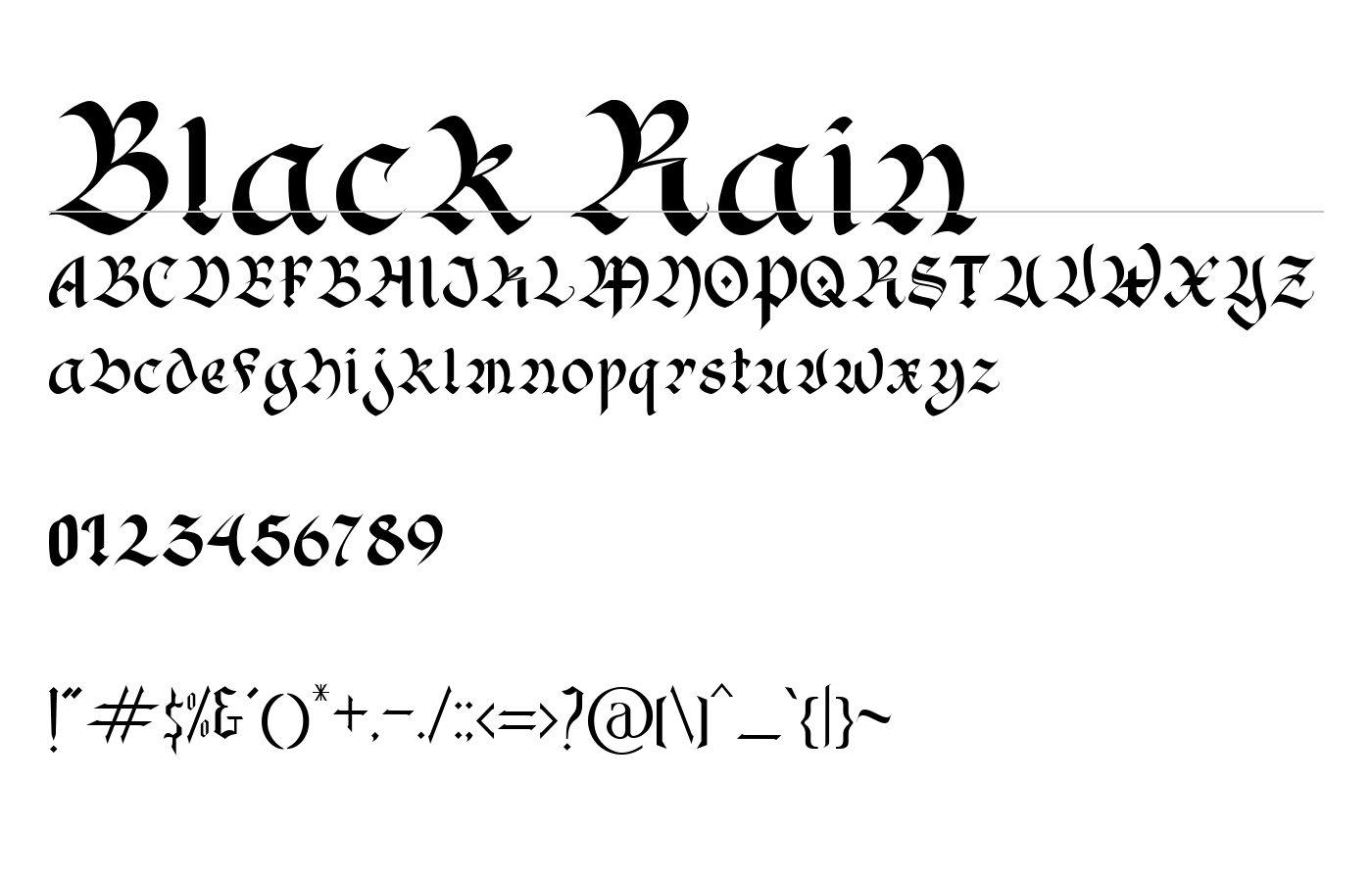
Black Rain is a bold, blackletter serif font with sharp, angular strokes and high contrast that evoke a strong gothic and medieval vibe. Its intricate letterforms with distinctive flourishes and single-story characters create an old-world, dramatic personality ideal for branding, headlines, and designs seeking a vintage or darkly elegant aesthetic. This font works best in logos, posters, and editorial projects where a bold, historic, and mysterious feel is desired.
Black Rain Font
About Black Rain Font